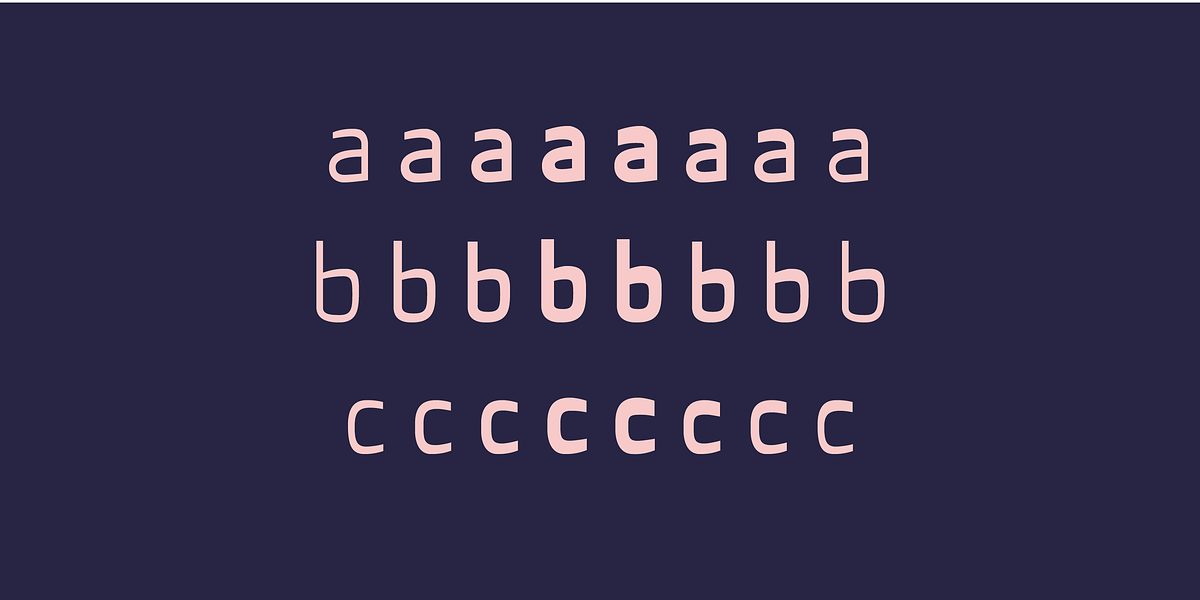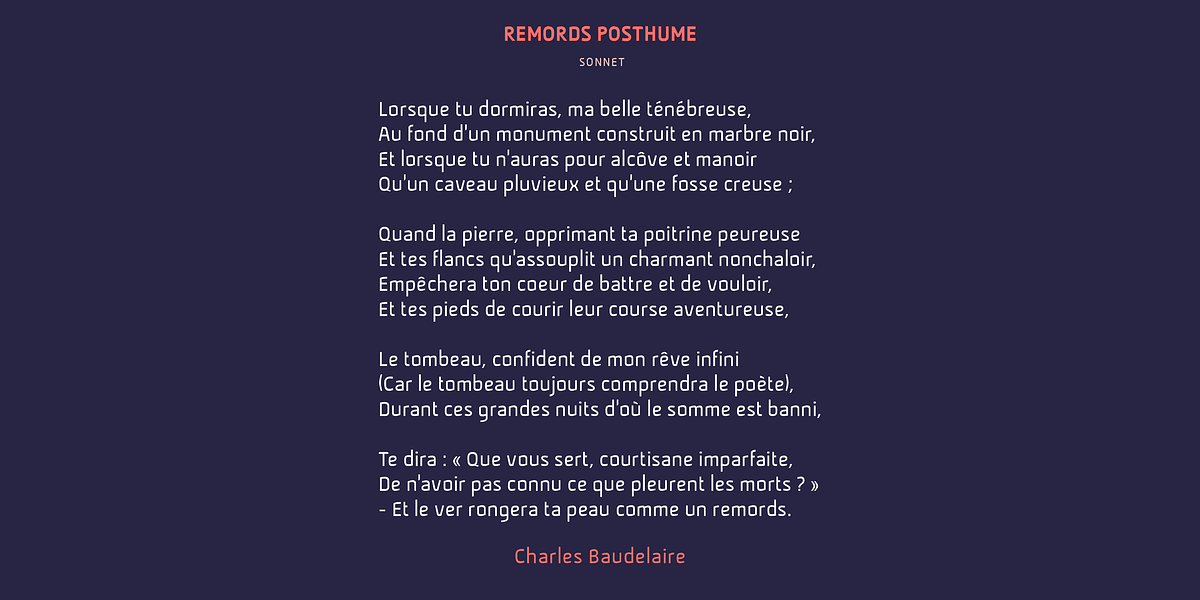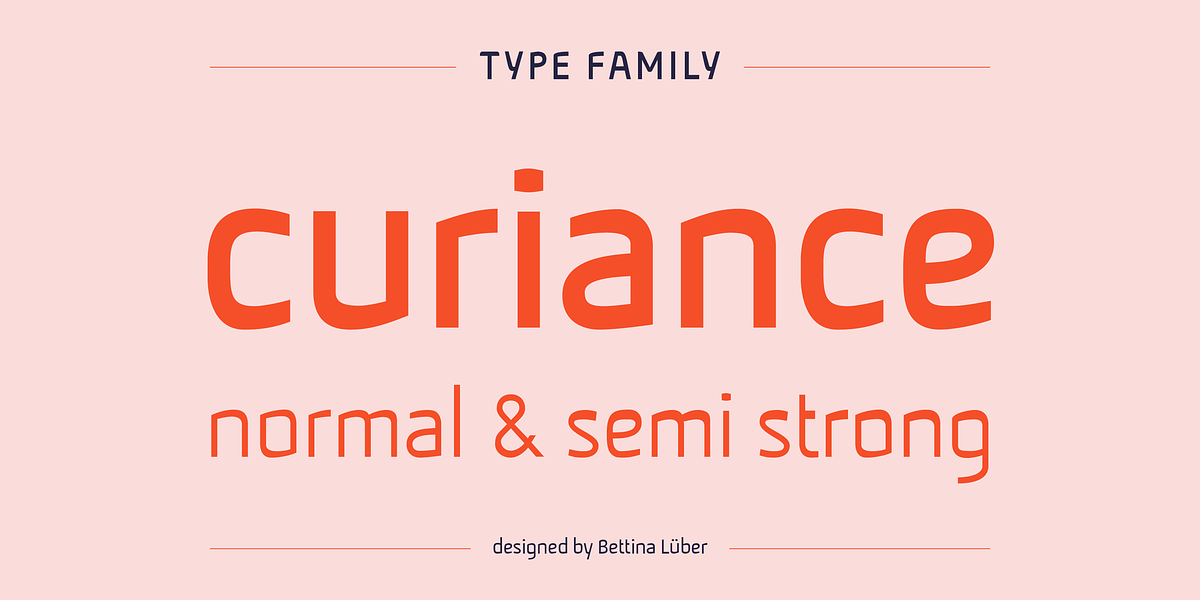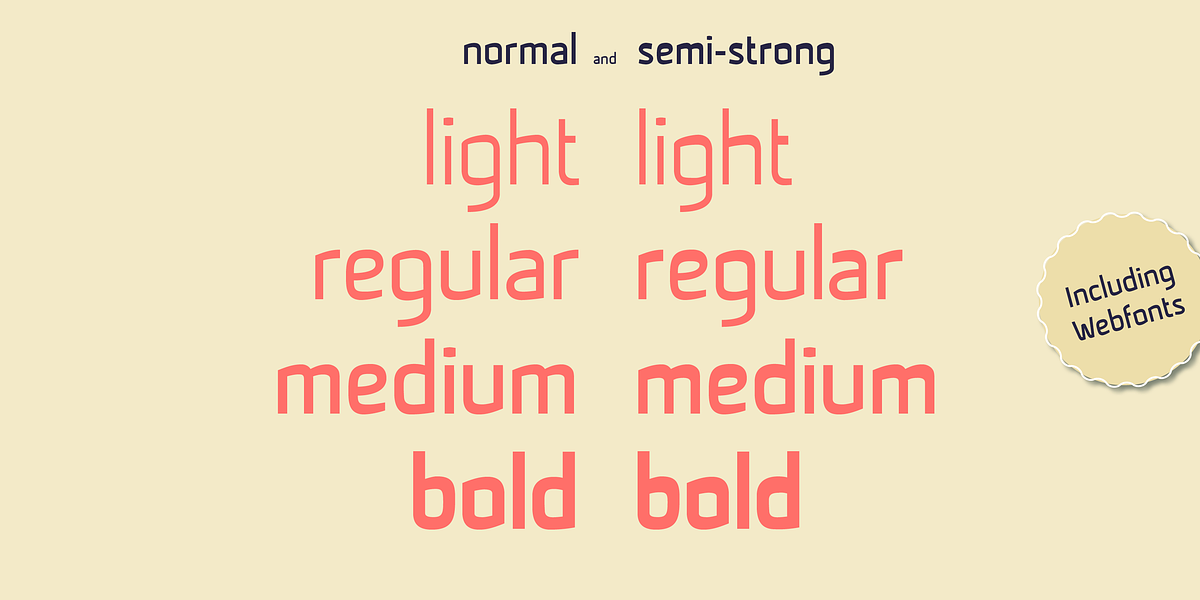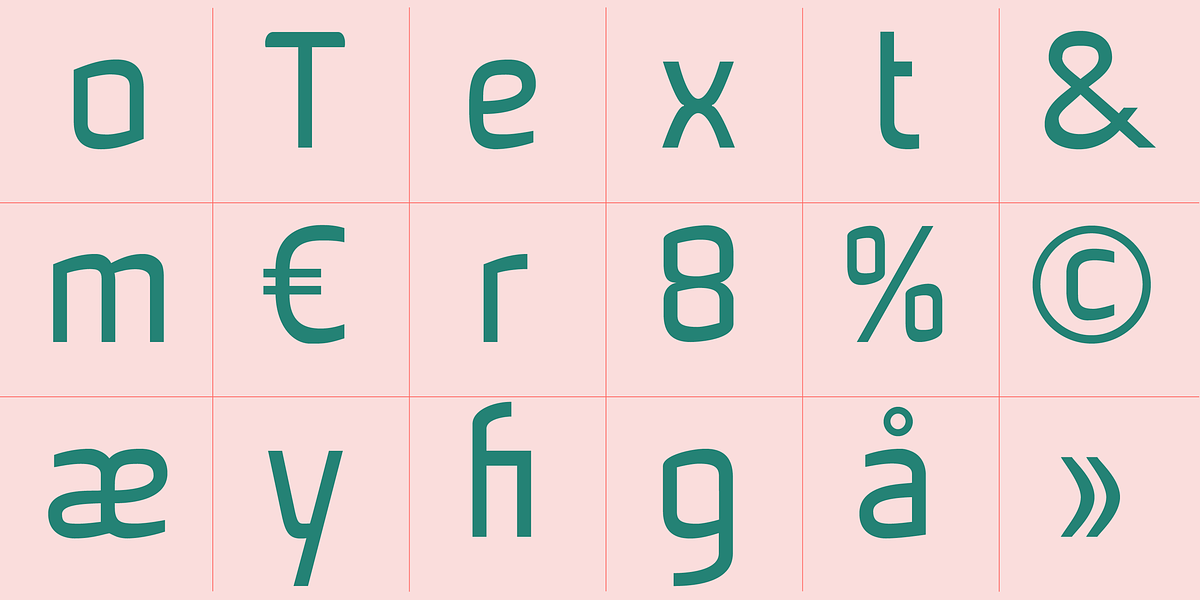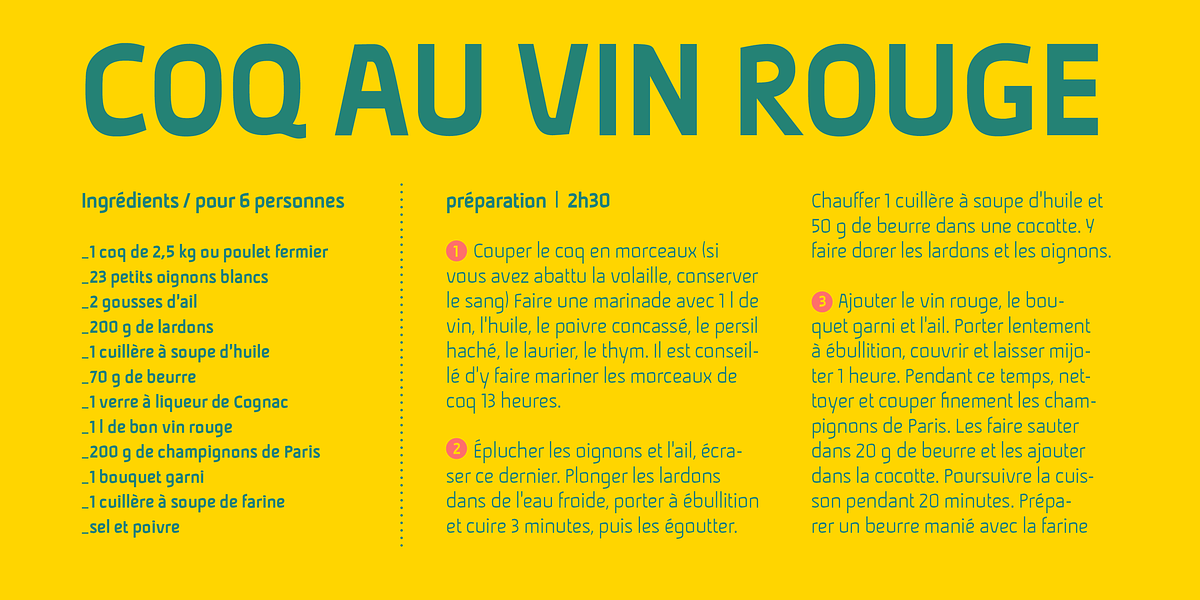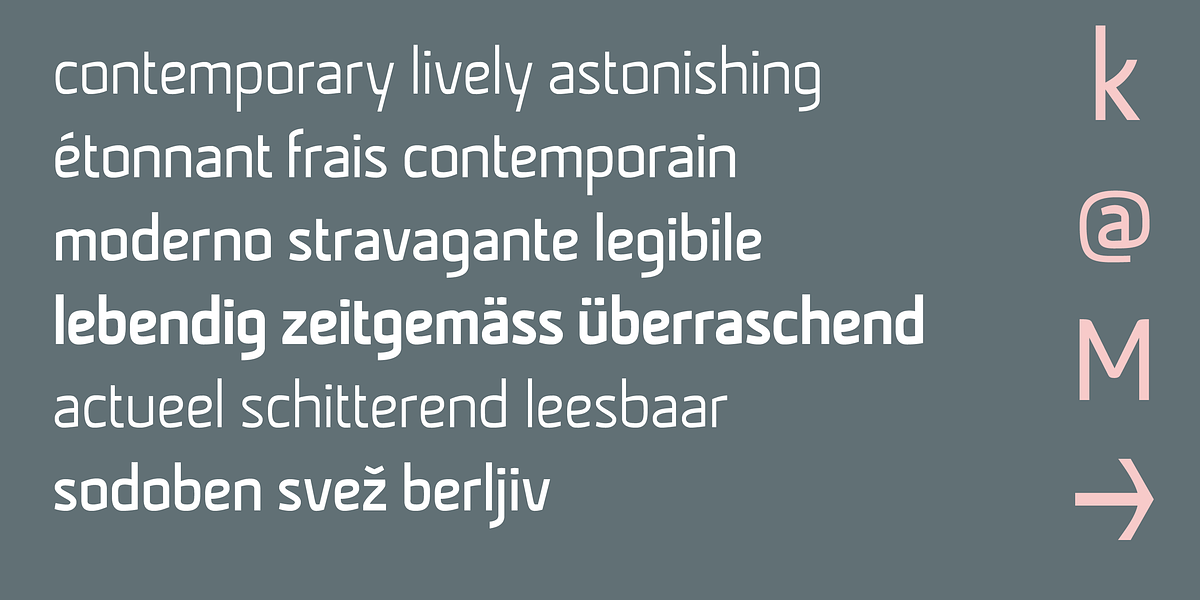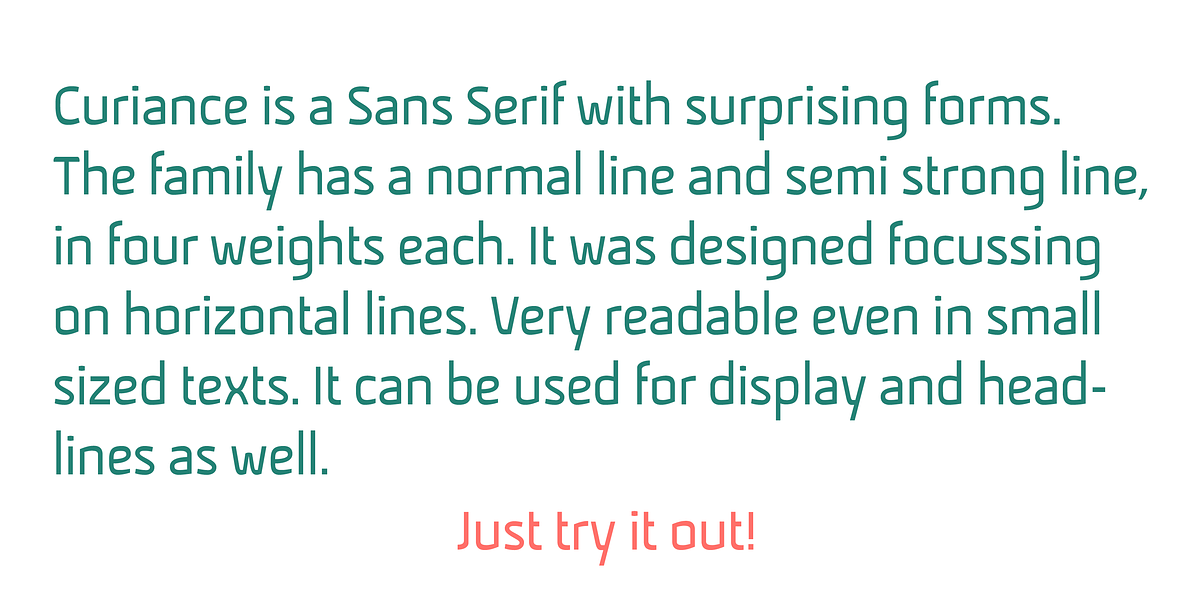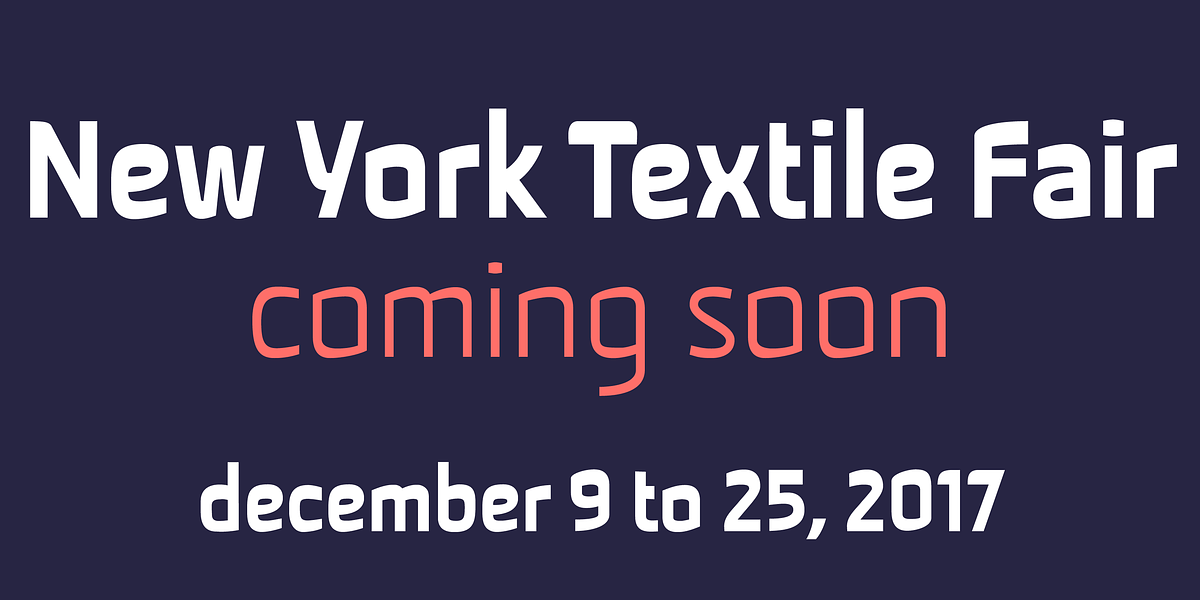
Curiance
Curiance is a sans serif typeface designed with readability and aesthetic appeal in mind. Its geometric forms are inspired by sans serifs popular in the 1990s and early 2000s. The font family offers a range of weights from light to semi-strong, making it suitable for both body text and display purposes. The designer focused on horizontal lines and aimed to create a typeface that went beyond traditional grotesque design rules.